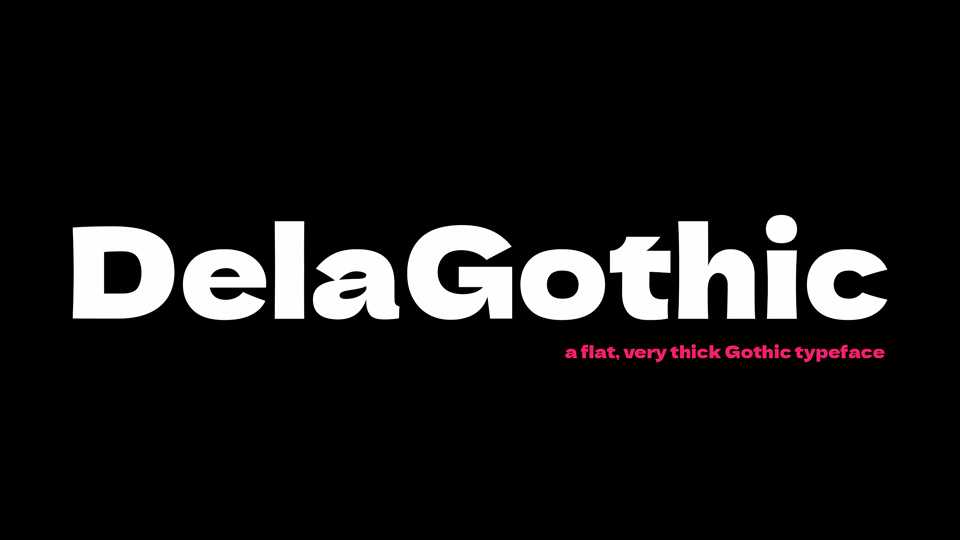
Download DelaGothic font, a flat, very thick Gothic display typeface. Its stability and strength make DelaGothic ideal for use on posters and packaging.
Designer: syakuzen